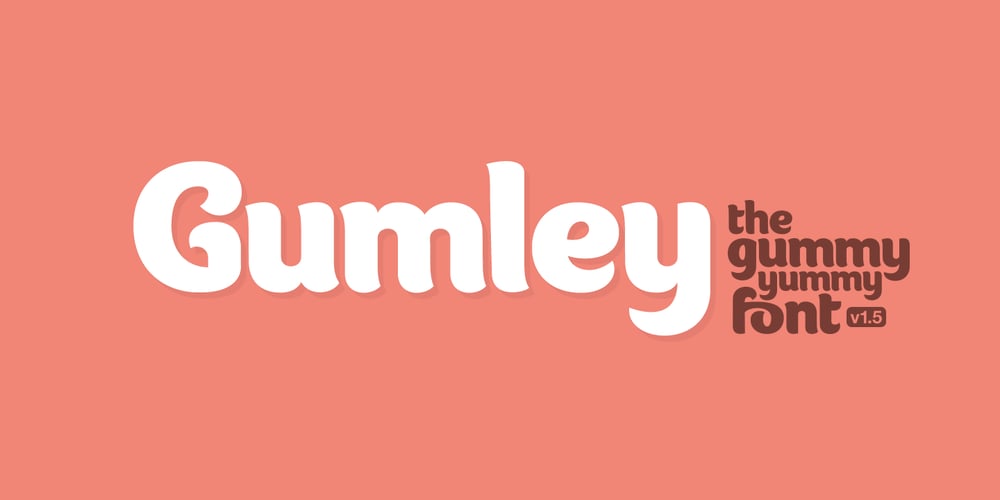
Gumley Font Family was designed by Robert Corseanschi and published by Robert Corseanschi. Gumley contains 2 styles and family package options. Gumley – a font which has a fresh natural look and feel inspired by nature, at the same time it has a gummy feel which would fit very well on packaging design. With a little inspiration every product can look awesome with this font, starting from kids magazines to logos and package design.